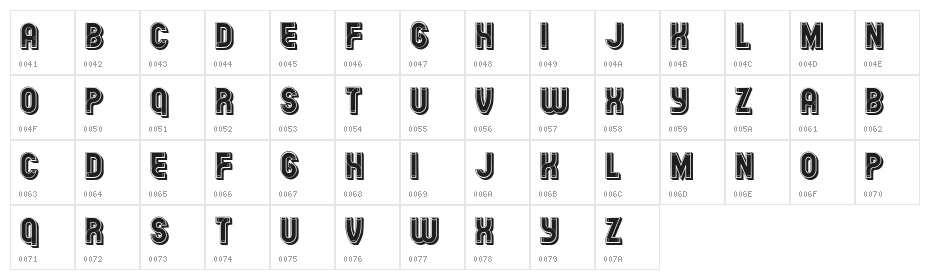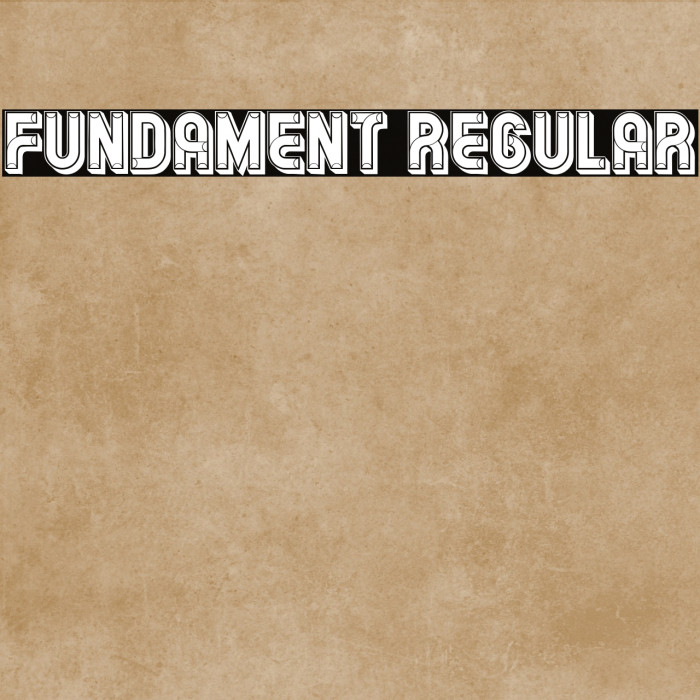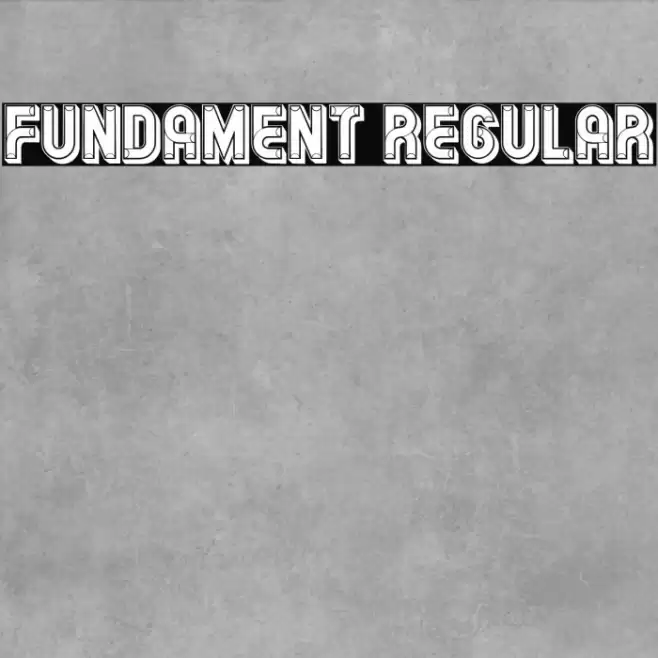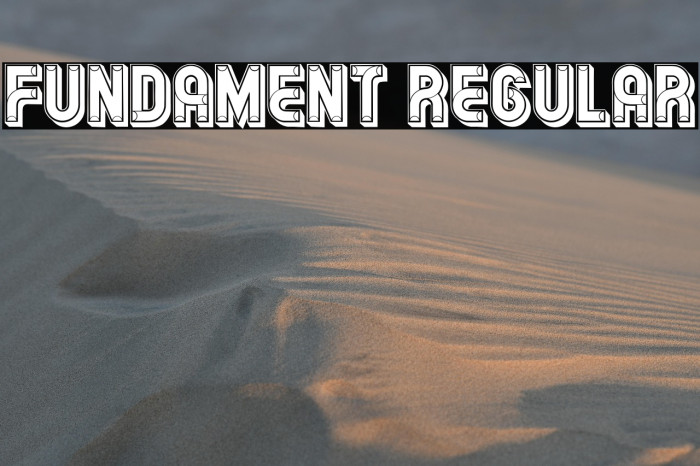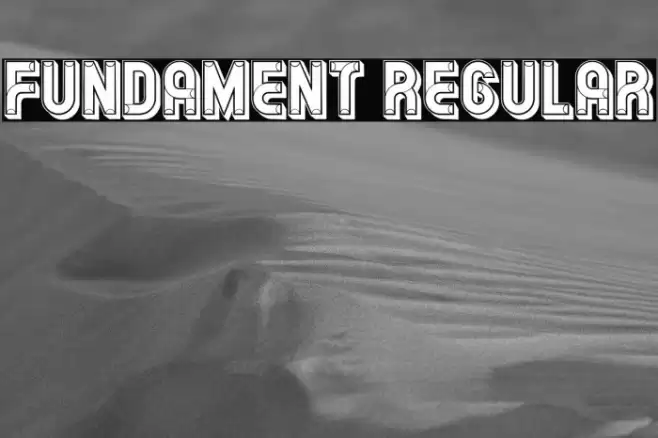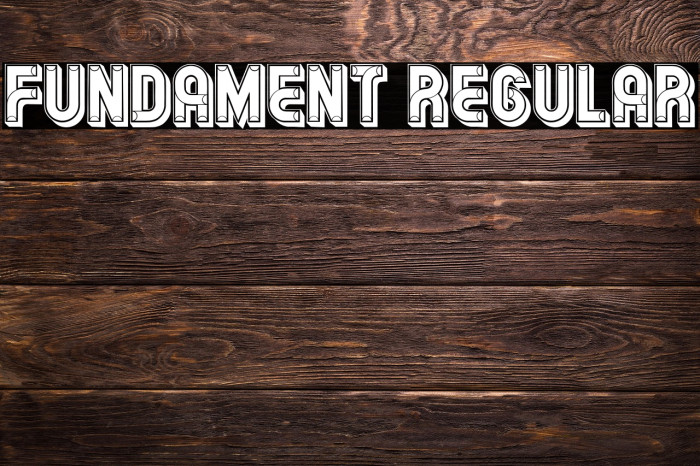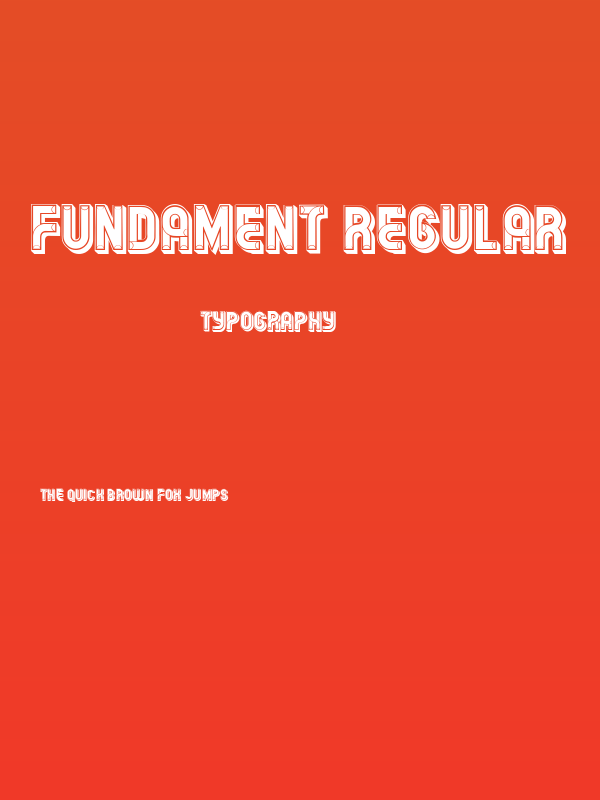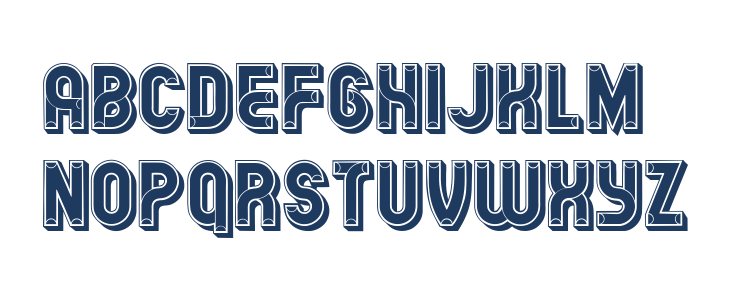
Fundament Regular Font
Fundament Regular Description
This font features a bold, decorative style with a strong 3D effect, achieved through its shadowed outline. The characters are uppercase and exhibit a geometric structure, with sharp angles and clean lines. The design is eye-catching and dynamic, making it suitable for impactful visual statements. The shadowing adds depth, creating a sense of movement and dimension. Each letter is crafted with precision, ensuring clarity and readability despite the intricate design. The font's unique style is both modern and playful, perfect for creative projects that require a standout typeface.